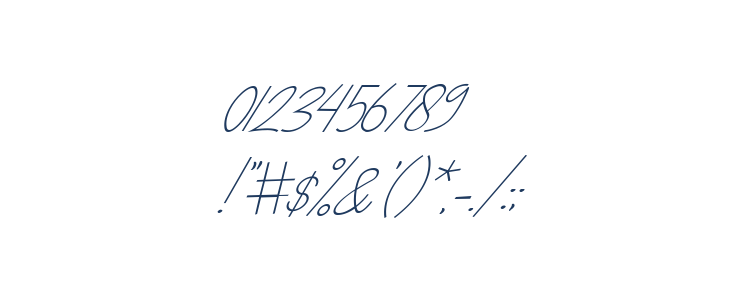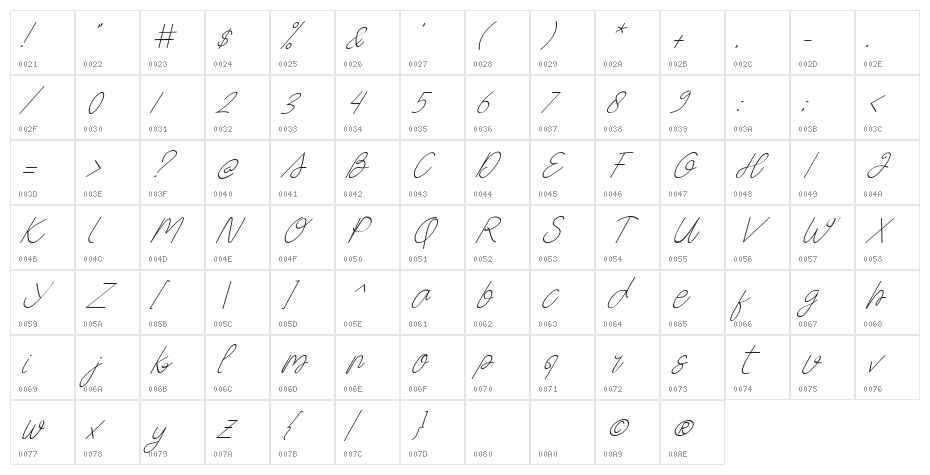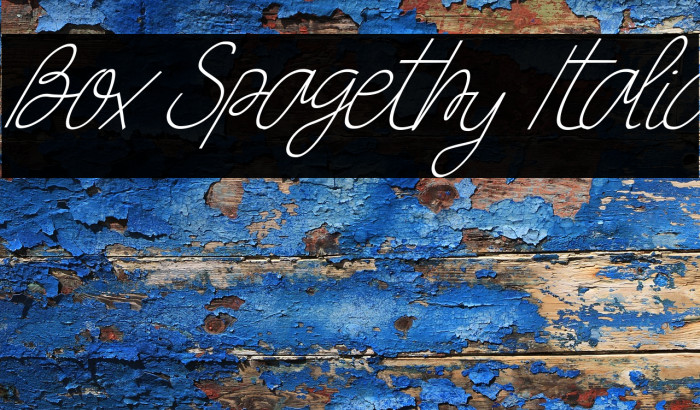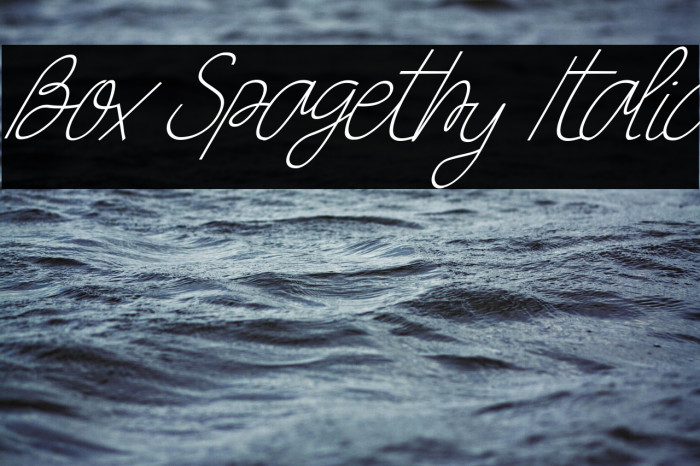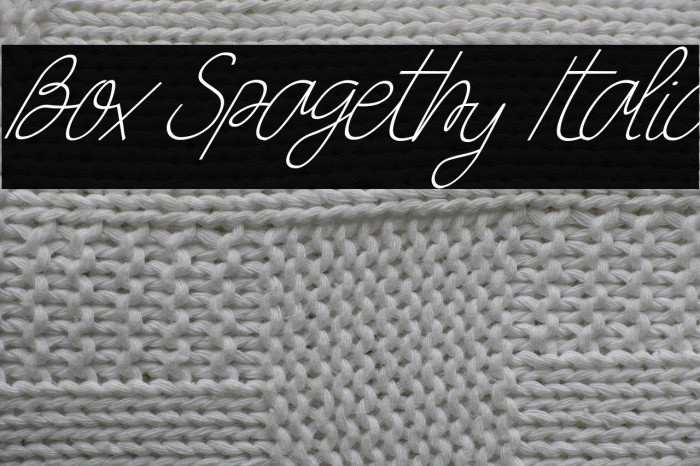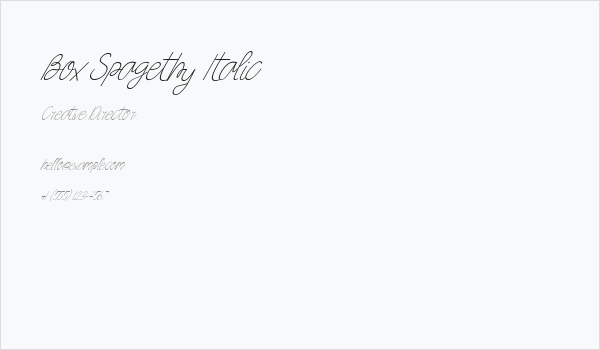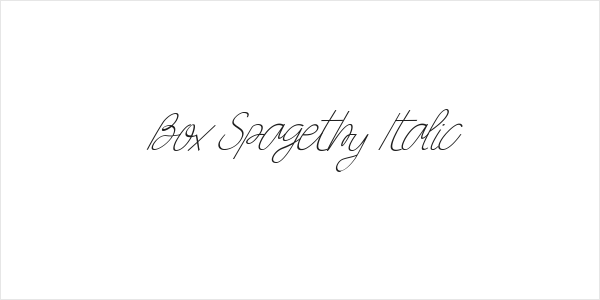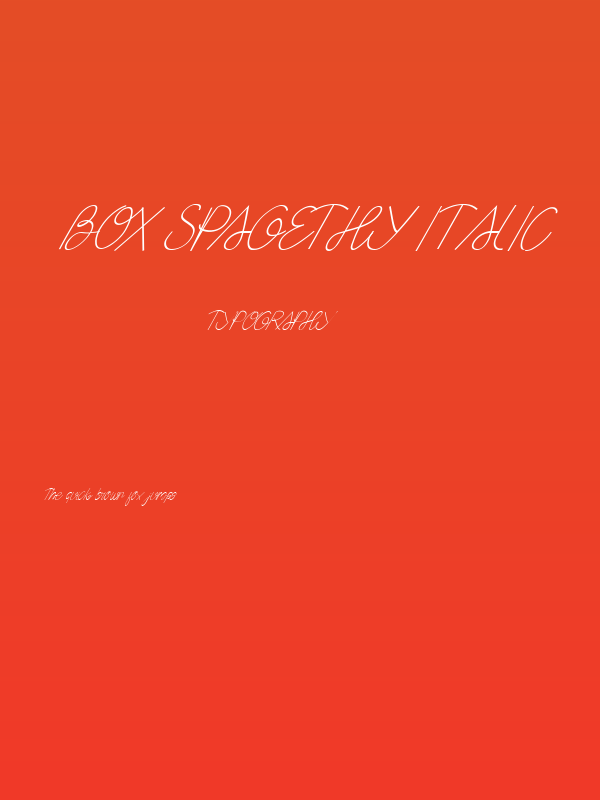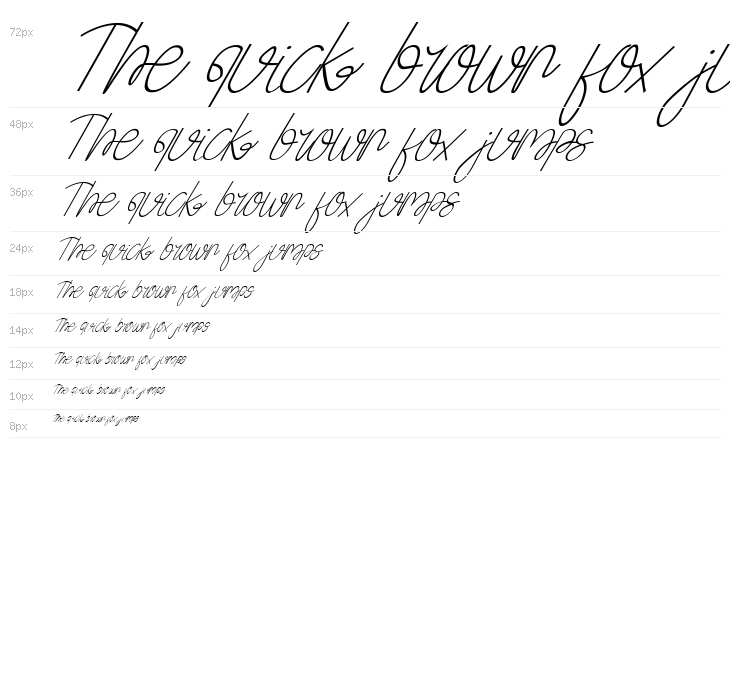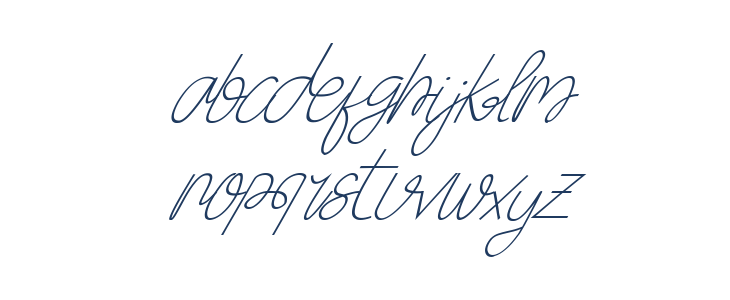
Box Spagethy Italic Font
Box Spagethy Italic Description
This font features a flowing, cursive style with a distinct italic slant, giving it a sense of motion and elegance. The letters are interconnected, creating a seamless and continuous look that mimics natural handwriting. The strokes are thin and consistent, adding to the overall delicate appearance. The uppercase letters are slightly taller than the lowercase, maintaining a balanced proportion. Numbers and special characters are designed to match the fluidity of the alphabet, ensuring a cohesive look across all text. This font exudes a sense of sophistication and creativity, making it suitable for artistic and expressive projects.
Overall StyleElegant
Use CaseLogos, Invitations, Artistic projects
Proposed ProjectsIdeal for wedding invitations, greeting cards, personal branding, and artistic projects that require a touch of elegance and sophistication.